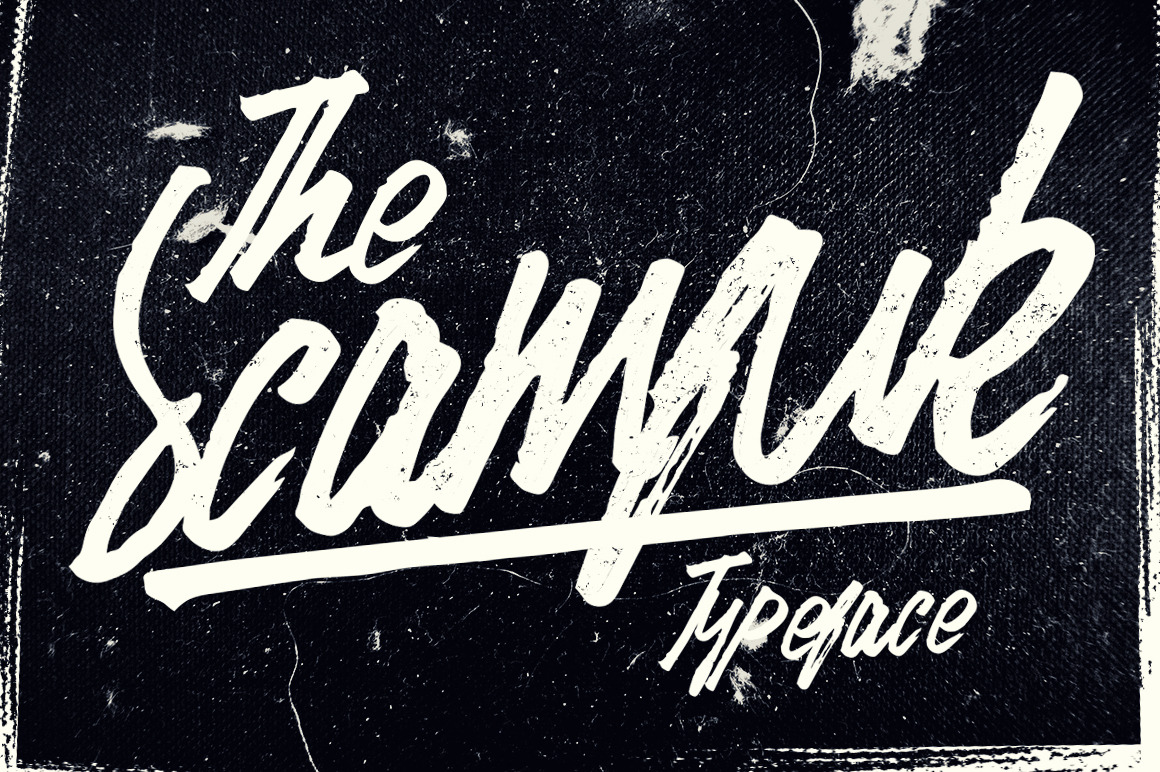
Scamfuk Typeface
A sequel from my bestseller Skumfuk Typeface, same feel but different styles, comes with more glyphs. Uppercase, Lowercase and Punctuations available
Fit for your band stuff, posters, with brush feels and rebel vibes